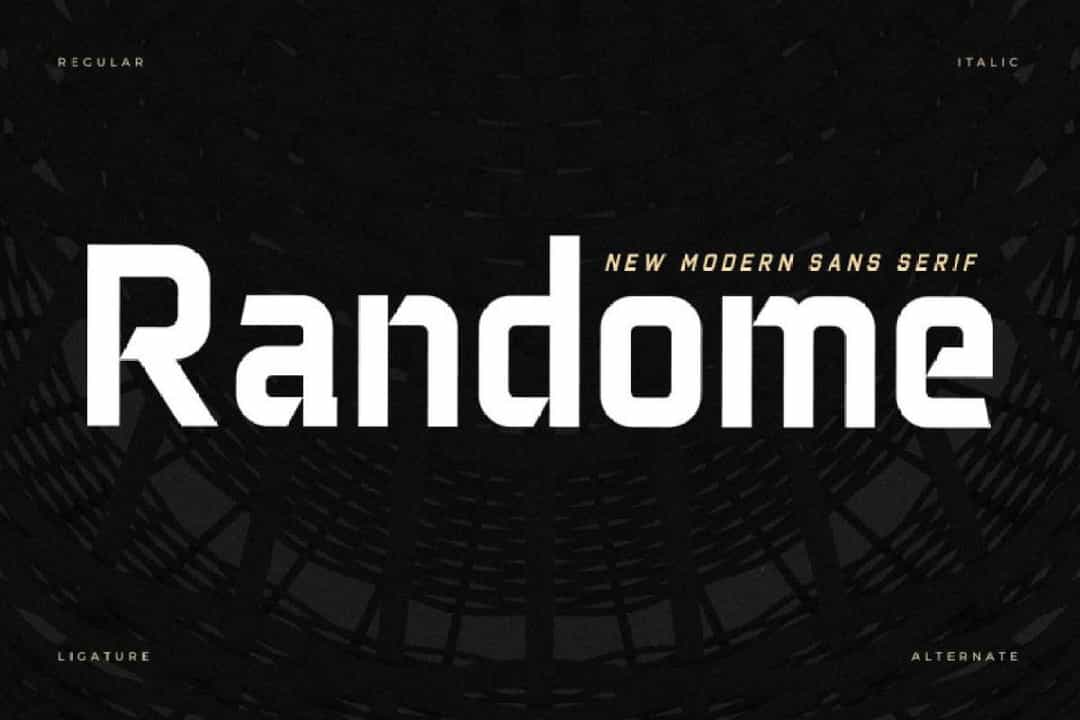
Randome is an assertive and bold sans serif font designed to complement any design project, no matter its subject matter. Perfect for use when creating classy logos, movie or book name designs, fashion brand clothing lines, magazine letters or quotes among many other uses – Randome makes for an impressive font addition.